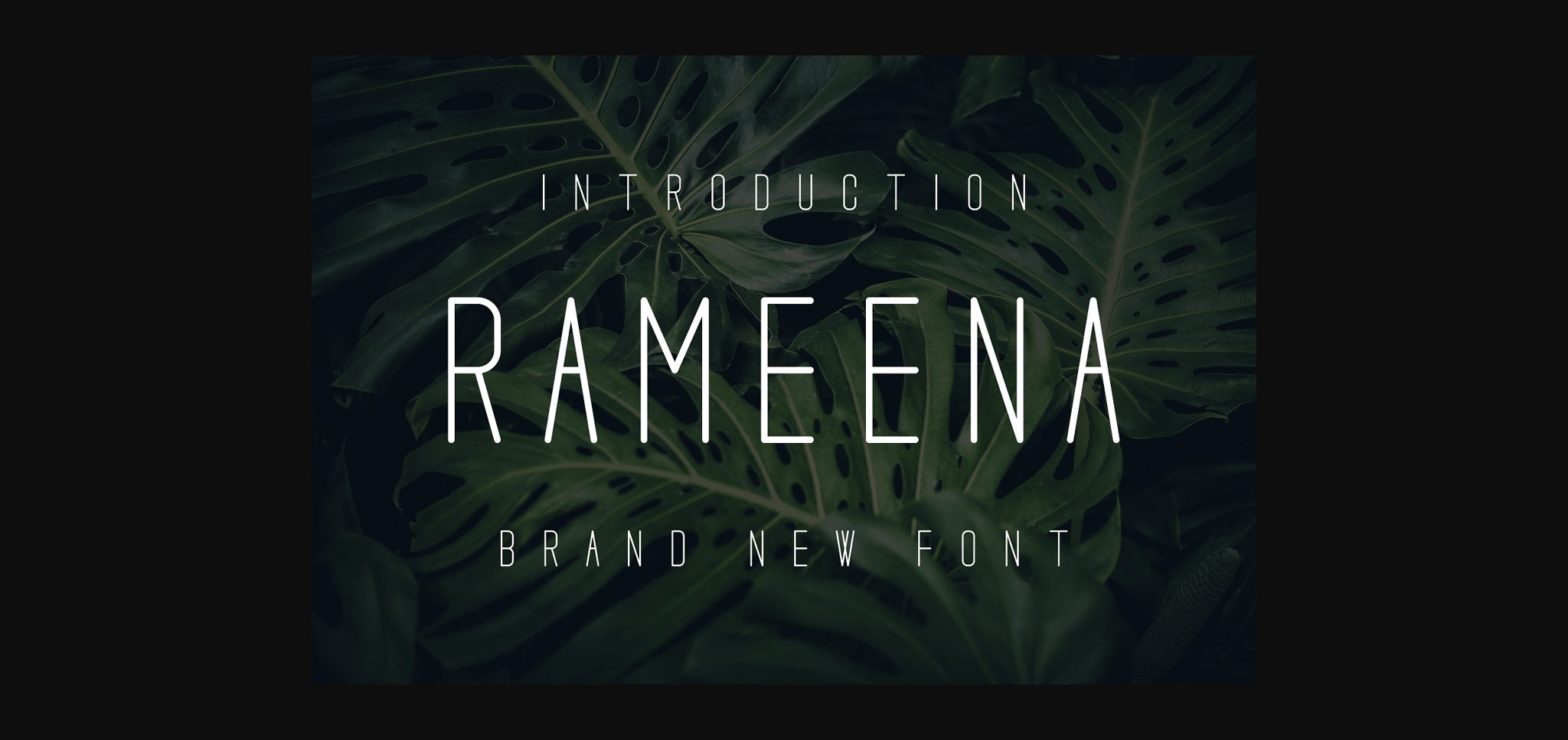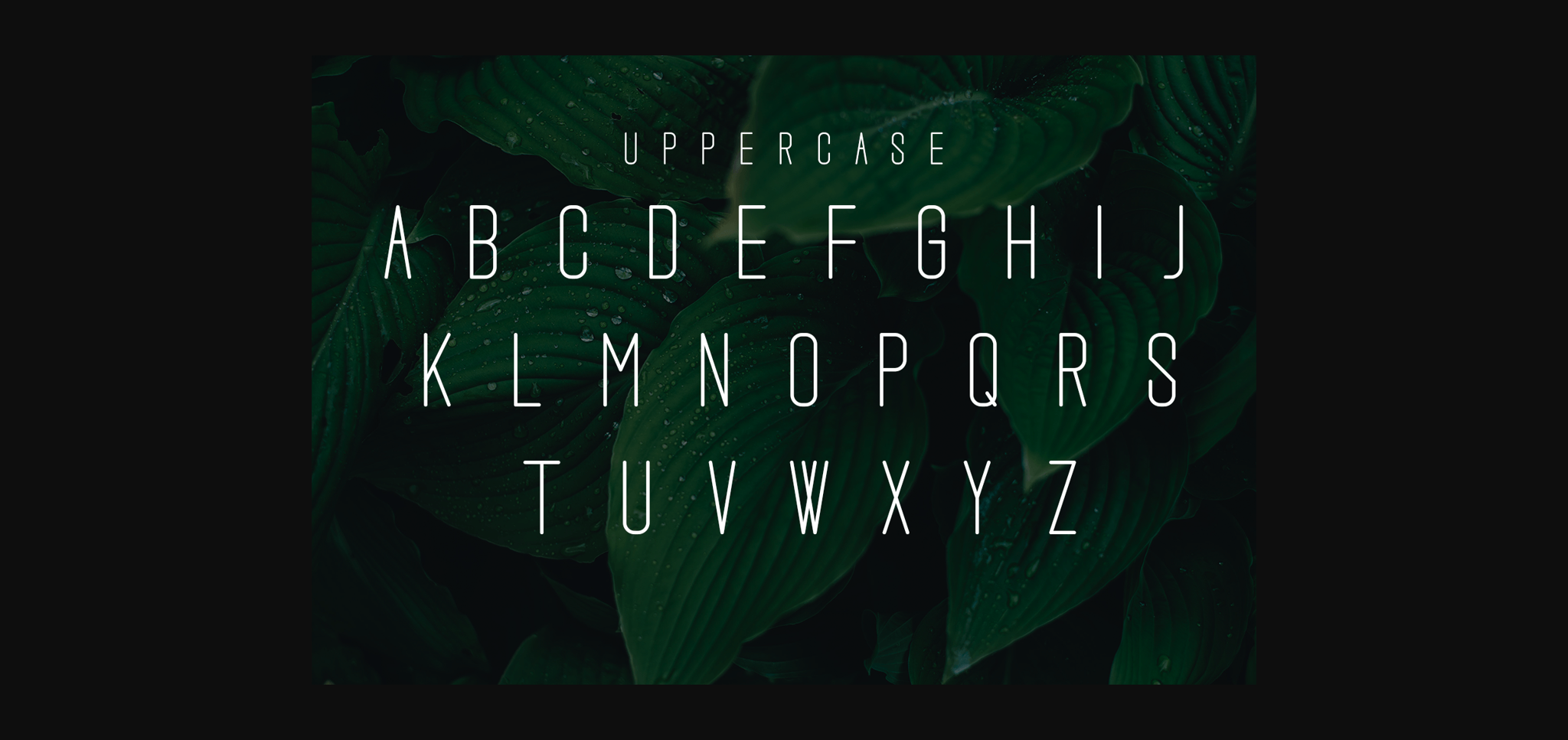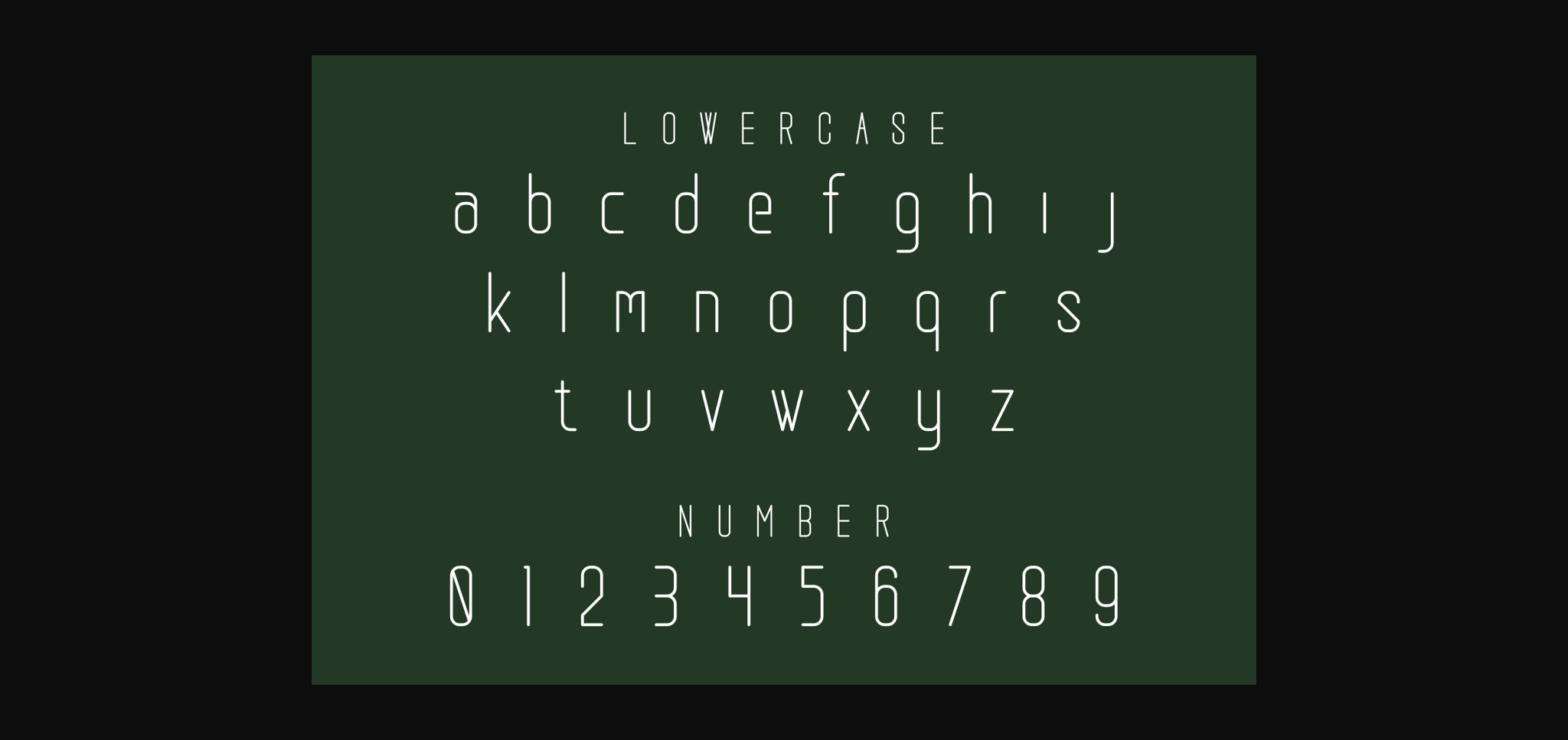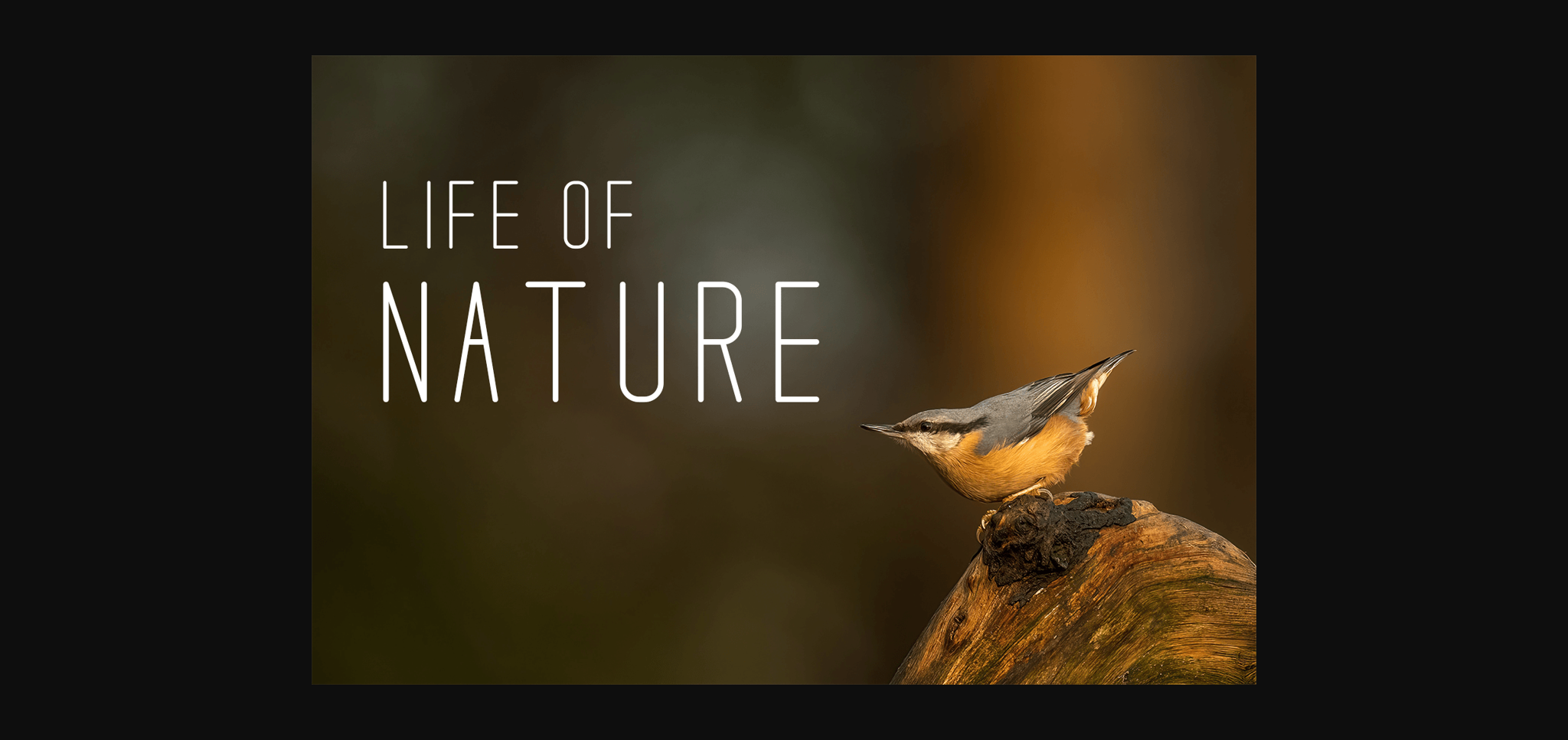
About Rameena Font
Rameena is an elegant, thin-lettered sans serif font. Stylish, graceful, and flowing, this font will definitely elevate the look of any of your beautiful creations while keeping them grounded and natural.